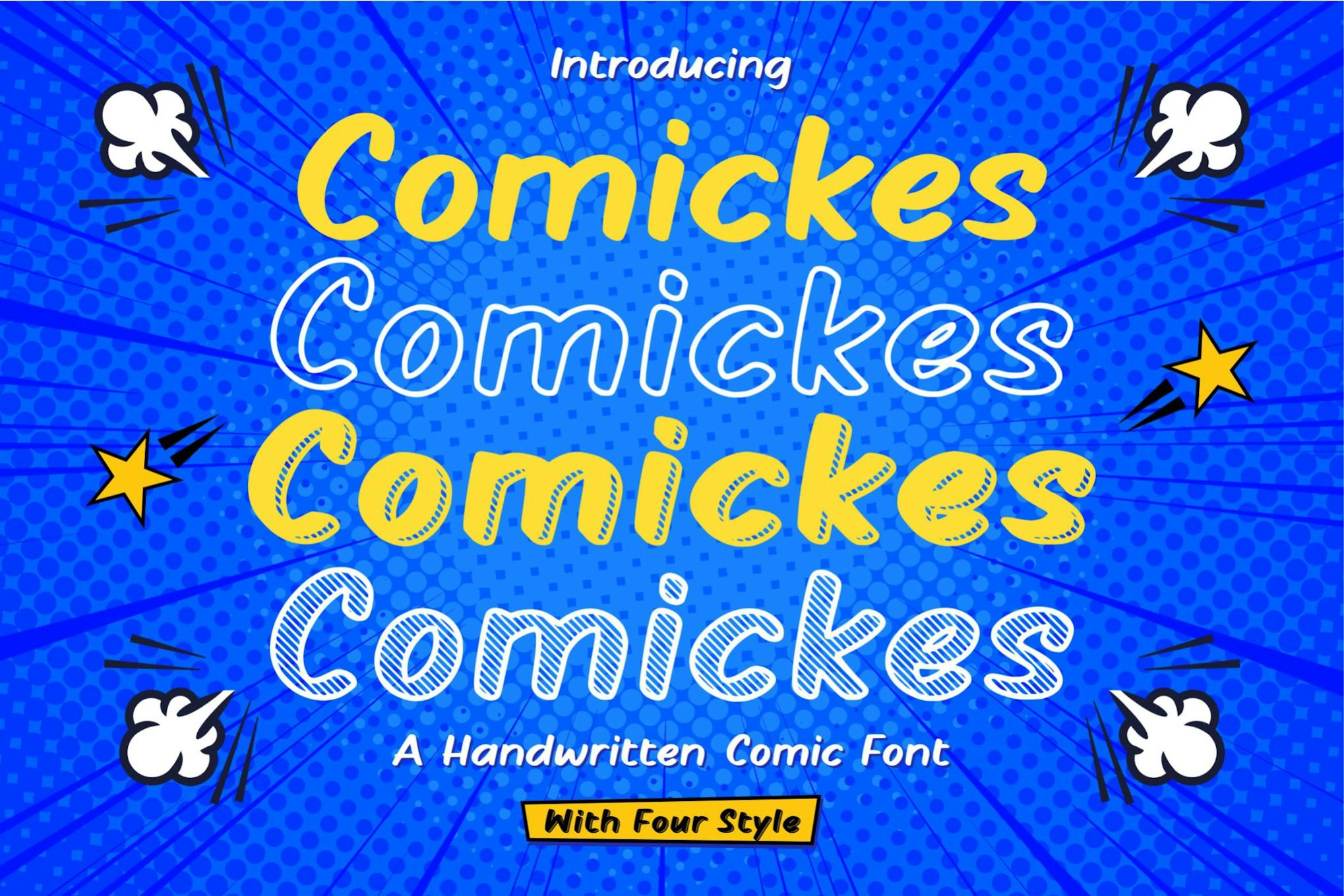
AL - Comickes Font
Perfect for comic books, cartoons, children's books, posters, logos, and playful branding.
The AL - Comickes Font excites designers with its fun, lively, and hand-drawn comic style that instantly adds energy and character to any creative project.
The AL - Comickes Font Free Download is a vibrant typeface designed to bring a playful and dynamic vibe to your designs. Its hand-crafted comic style features bold, rounded letters that capture the essence of classic comic art. Whether you’re designing comic books, kids’ materials, or fun posters, AL - Comickes delivers a cheerful and engaging look.
One of the standout features of AL - Comickes Font is its excellent readability combined with expressive style. Despite its playful nature, it remains clear and impactful for headlines and display text, ensuring your message is both eye-catching and easy to read.
In branding, AL - Comickes conveys fun, creativity, and youthfulness. It pairs well with bright colors, dynamic layouts, and playful graphics, helping brands connect with children and young audiences.
For digital projects, this font enhances website headers, social media content, and digital marketing materials with its lively and charming style. Its distinctive character ensures your digital presence stands out with joyful personality.